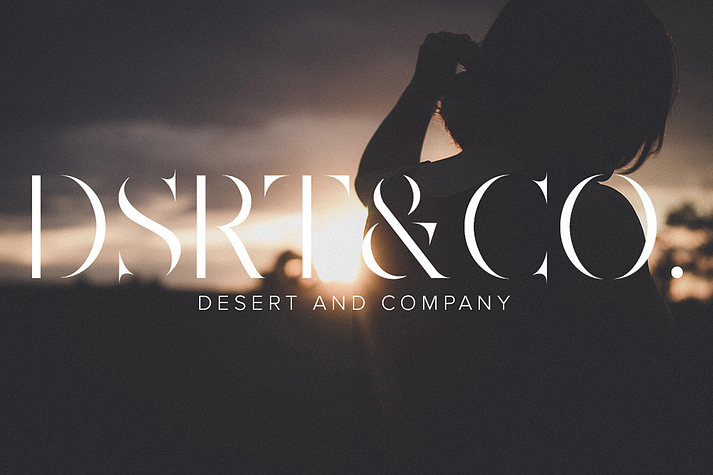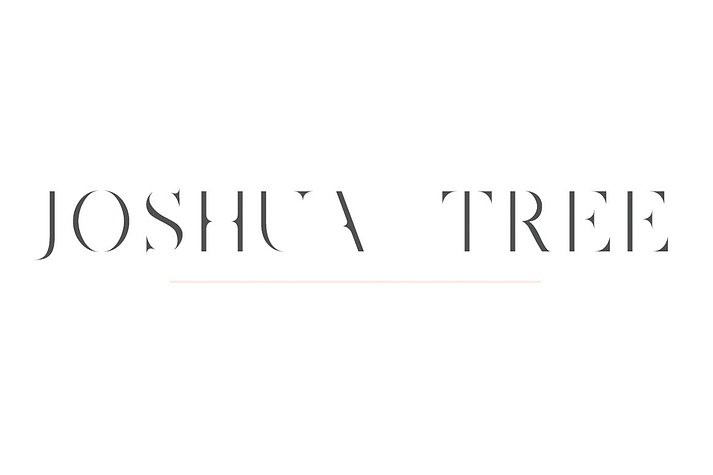
Joshua Tree
Joshua Tree is a sans serif font family published by Jen Wagner Co.
Joshua Tree is an absolutely gorgeous all-uppercase serif typeface that features clean lines, thin serifs, and letter gaps. It looks perfect when used for logos, headings, invitations, and more. I prefer to set the kerning around 110 for logos, but it looks nice tightly kerned in other contexts (i.e. DSRT&CO. sample).
• uppercase letters
• numbers + punctuation